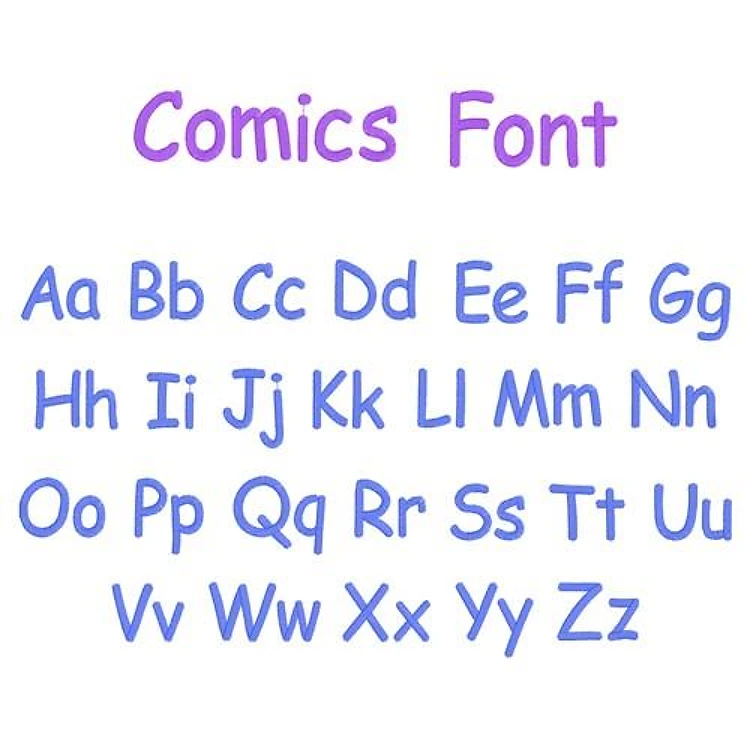
Maya Kreations is happy to present Comics Font machine embroidery font which has Playful rounded letters in this comic machine embroidery font make it an excellent choice for casual designs on items like t-shirts or tote bags. Available in PES, DST, and 6 other formats. included. If you would like to view more embroidery fonts and alphabets please search our embroidery fonts page.